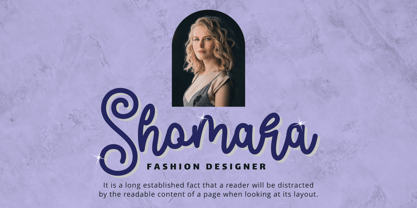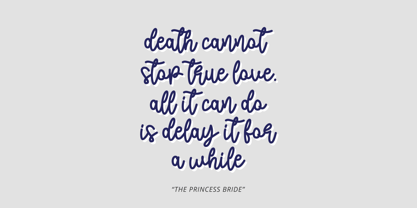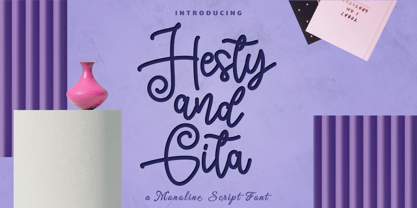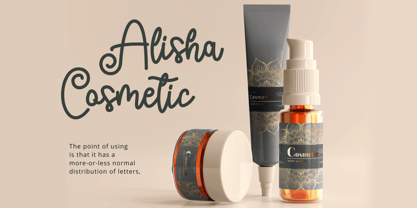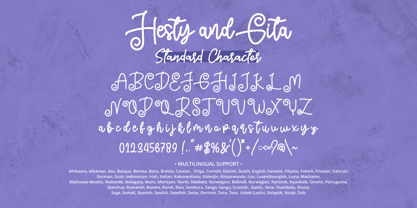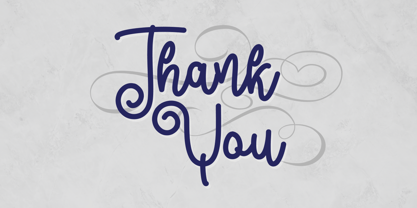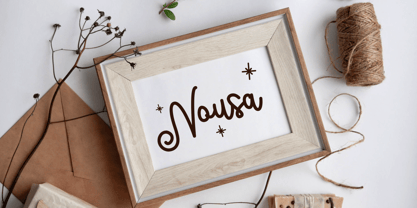
Hesty and Gita
La famille de polices Hesty and Gita a été conçue par Abdullah Mabhal et publiée par Mabhal Studio. Hesty and Gita contient 1 styles. En savoir plus sur cette famille
Hesty and Gita is an elegant monoline script font featuring playful and decorative curly swashes. This versatile typeface balances a handcrafted feel with clean, consistent strokes, making it perfect for modern branding projects. It is an ideal choice for fashion design, cosmetic packaging, wedding invitations, social media quotes, greeting cards, and logo design. The font includes uppercase, lowercase, numerals, punctuation, and extensive multilingual support for global projects.